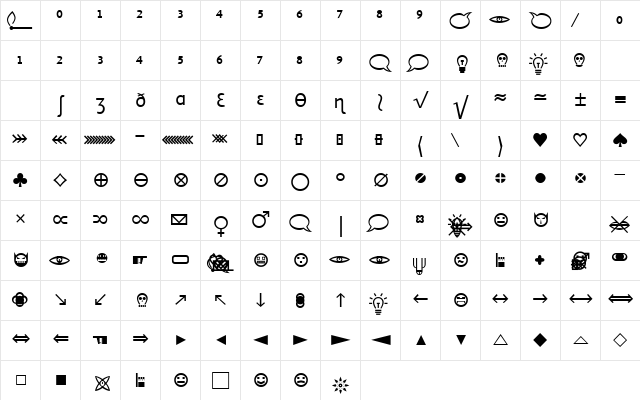
LTHeureka Glyphs Regular
Design Context for LTHeureka Glyphs Typeface
LTHeureka Glyphs offers clean, dependable letterforms without strong stylistic allegiance, making it a practical choice for designers who need flexibility.
Pro Tip: Use LTHeureka Glyphs in both headline and body roles to test its range before committing to a single application.